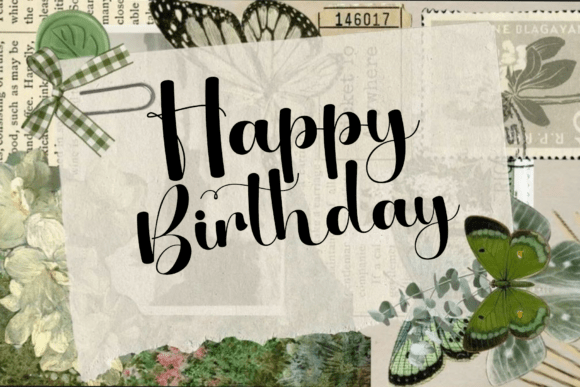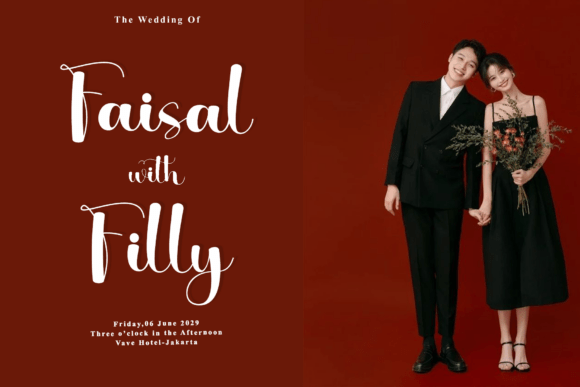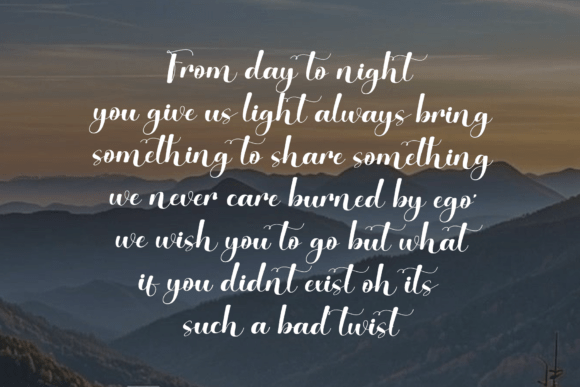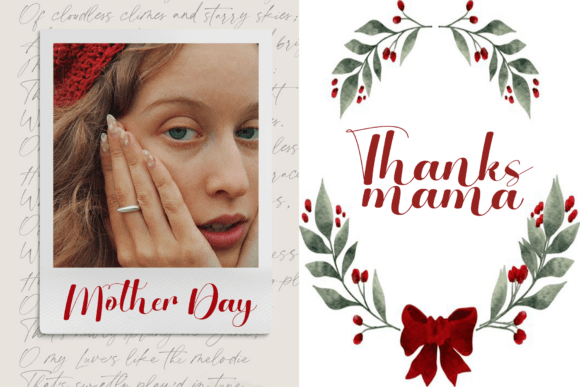
Introducing Creating: A Stunning Handwritten Script Font
In the world of typography, a well-crafted font can elevate a design from ordinary to extraordinary. For designers and crafters looking for a unique and elegant touch, Creating is a beautiful, modern, and stylized handwritten script font that’s sure to impress. With its smooth, fluid strokes and lovely ornamental curves, Creating exudes a feminine, professional, and slightly romantic charm that’s perfect for a variety of creative projects.
The Characteristics of Creating Font
Creating font boasts a range of characteristics that make it an excellent choice for designers and crafters. Some of its key features include:
- Smooth, fluid strokes: The font’s smooth strokes create a sense of fluidity and movement, giving it a dynamic and elegant feel.
- Lovely ornamental curves: The font’s ornamental curves add a touch of sophistication and romance, making it perfect for projects that require a feminine and professional look.
- Consistent weight: The font’s consistent weight ensures that it remains legible and easy to read, even at smaller sizes.
- Clean connections: The clean connections between letters create a sense of flow and harmony, making the font a joy to use.
Uses for Creating Font
Creating font is incredibly versatile and can be used for a wide range of creative projects. Some ideas include:
- Custom sublimation designs: The font’s smooth, fluid strokes and lovely ornamental curves make it perfect for custom sublimation designs, such as personalized mugs, t-shirts, and phone cases.
- Boutique branding: The font’s elegant and sophisticated feel makes it an excellent choice for boutique branding, including logos, packaging, and marketing materials.
- Personalized gifts: Creating font is perfect for creating personalized gifts, such as customized stationery, invitations, and gift tags.
- Custom stationery: The font’s clean and elegant design makes it an excellent choice for custom stationery, including notebooks, journals, and greeting cards.
Why Designers and Crafters Love Creating Font
Designers and crafters love Creating font for a variety of reasons. Some of the benefits of using this font include:
- Unique and elegant design: Creating font offers a unique and elegant design that’s sure to stand out in a crowded design landscape.
- Excellent legibility: The font’s consistent weight and clean connections ensure excellent legibility, making it easy to read and understand.
- Versatility: Creating font is incredibly versatile and can be used for a wide range of creative projects.
- Feminine and professional touch: The font’s feminine and professional touch makes it perfect for projects that require a touch of elegance and sophistication.
Tips for Using Creating Font
To get the most out of Creating font, here are a few tips to keep in mind:
- Use it for headlines and titles: Creating font is perfect for headlines and titles, where its elegant and sophisticated design can really shine.
- Experiment with different colors and textures: The font’s smooth, fluid strokes and lovely ornamental curves look great with a variety of colors and textures.
- Pair it with other fonts: Creating font pairs well with a range of other fonts, including serif and sans-serif fonts.
- Use it for digital and print projects: The font’s excellent legibility and elegant design make it perfect for both digital and print projects.
In conclusion, Creating font is a stunning handwritten script font that’s perfect for designers and crafters looking for a unique and elegant touch. With its smooth, fluid strokes and lovely ornamental curves, Creating exudes a feminine, professional, and slightly romantic charm that’s sure to impress. Whether you’re working on custom sublimation designs, boutique branding, personalized gifts, or custom stationery, Creating font is an excellent choice.